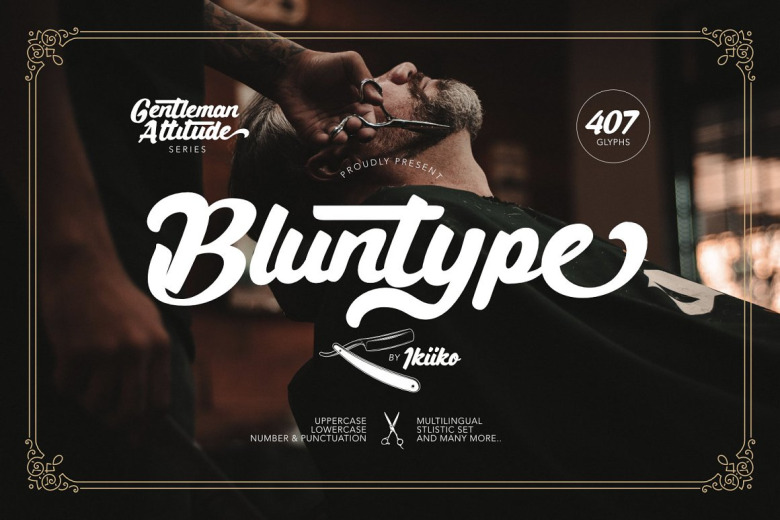
Bluntype Font
Blunky type is a brush script display font with blunt & bold style shape. There’s an expansive collection of alternative styles on offer with this typeface. Why not playing with it and using different stylistic sets to create the character you need.
Suitable for any design needs : branding, logos, handwritten quotes, product packaging, merchandise, blog design, pning pictures from travel and keeping event memories your personal smartphone. A modern script typeface.
Bluntype Brush Script Font